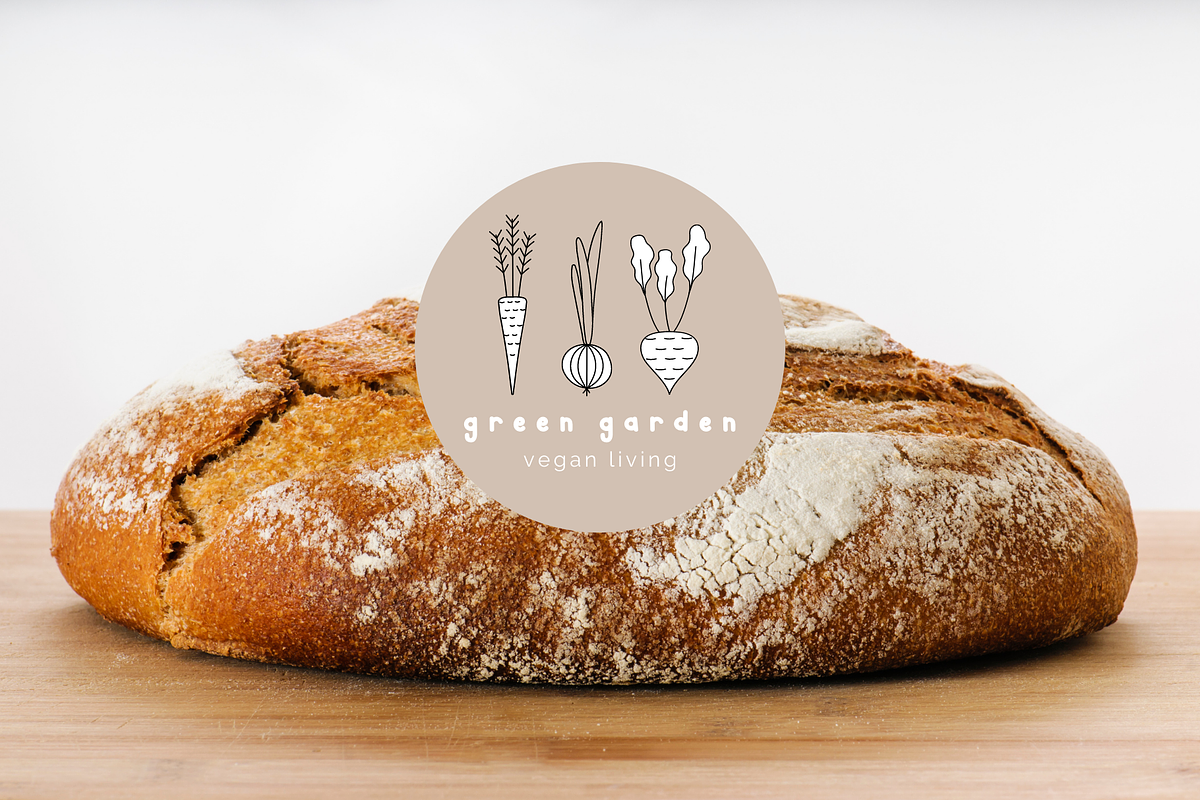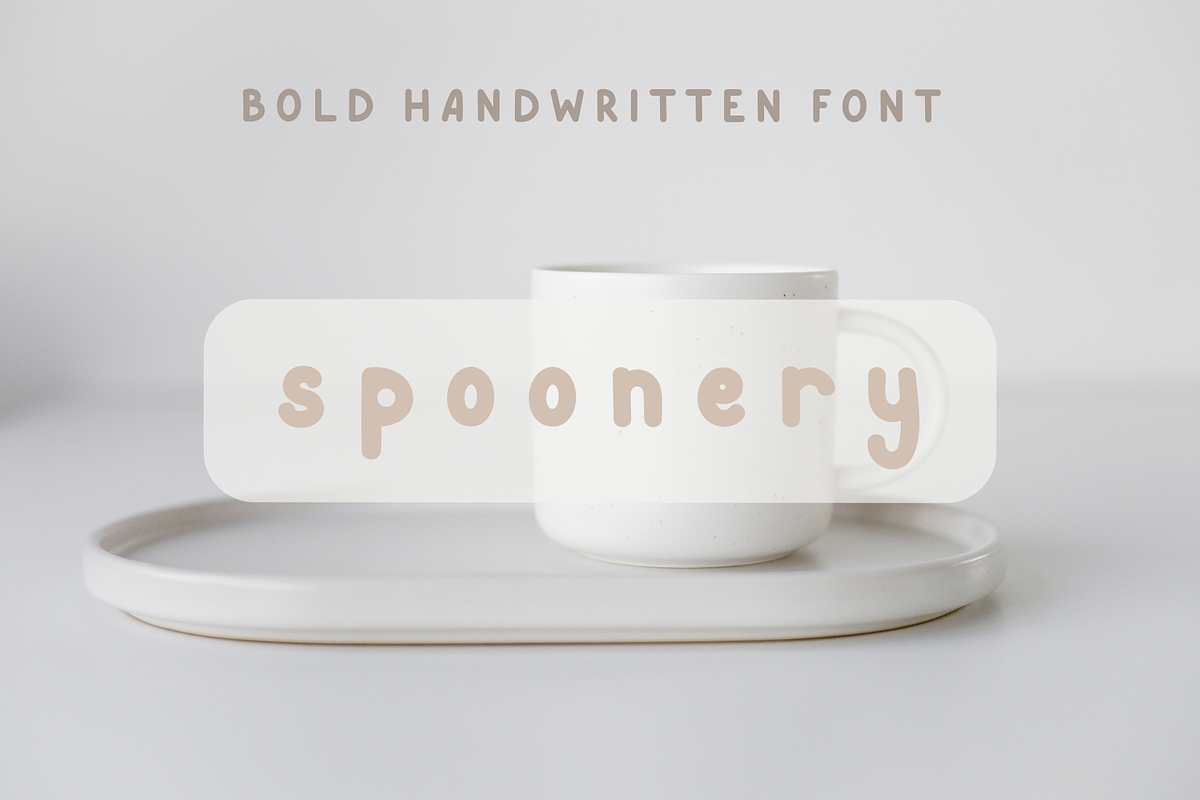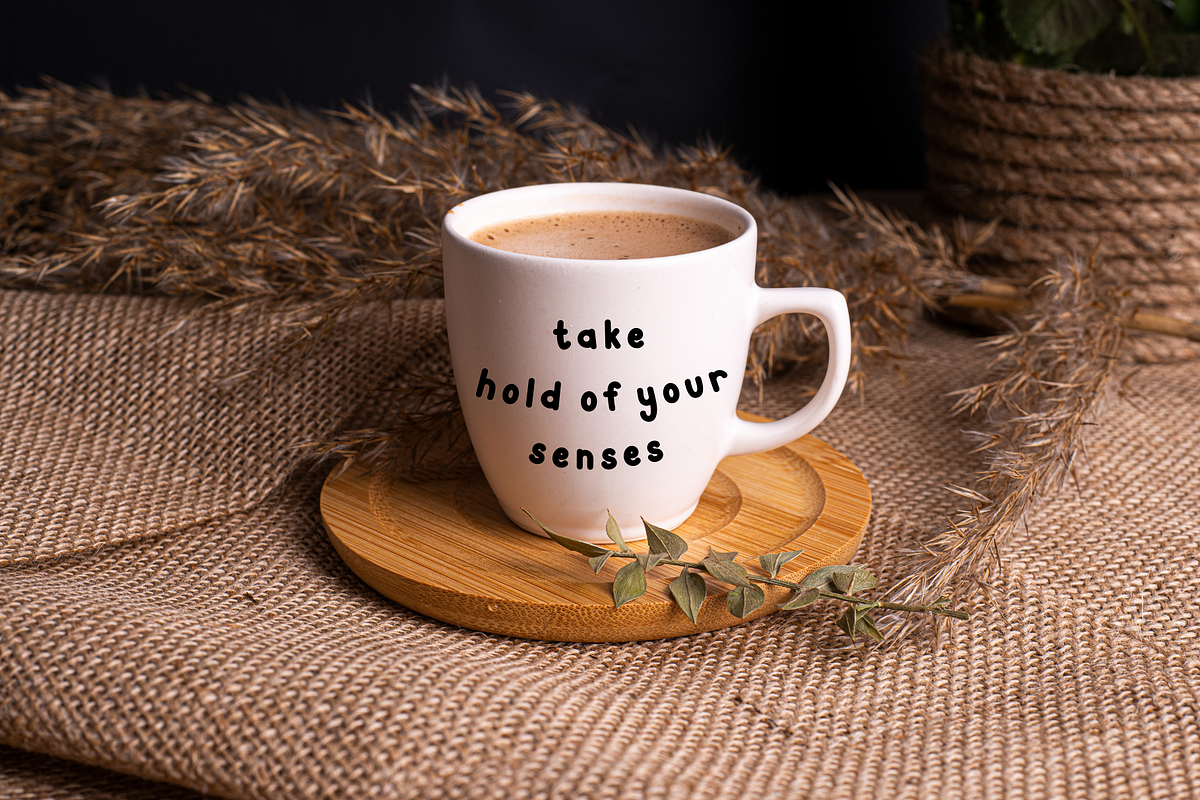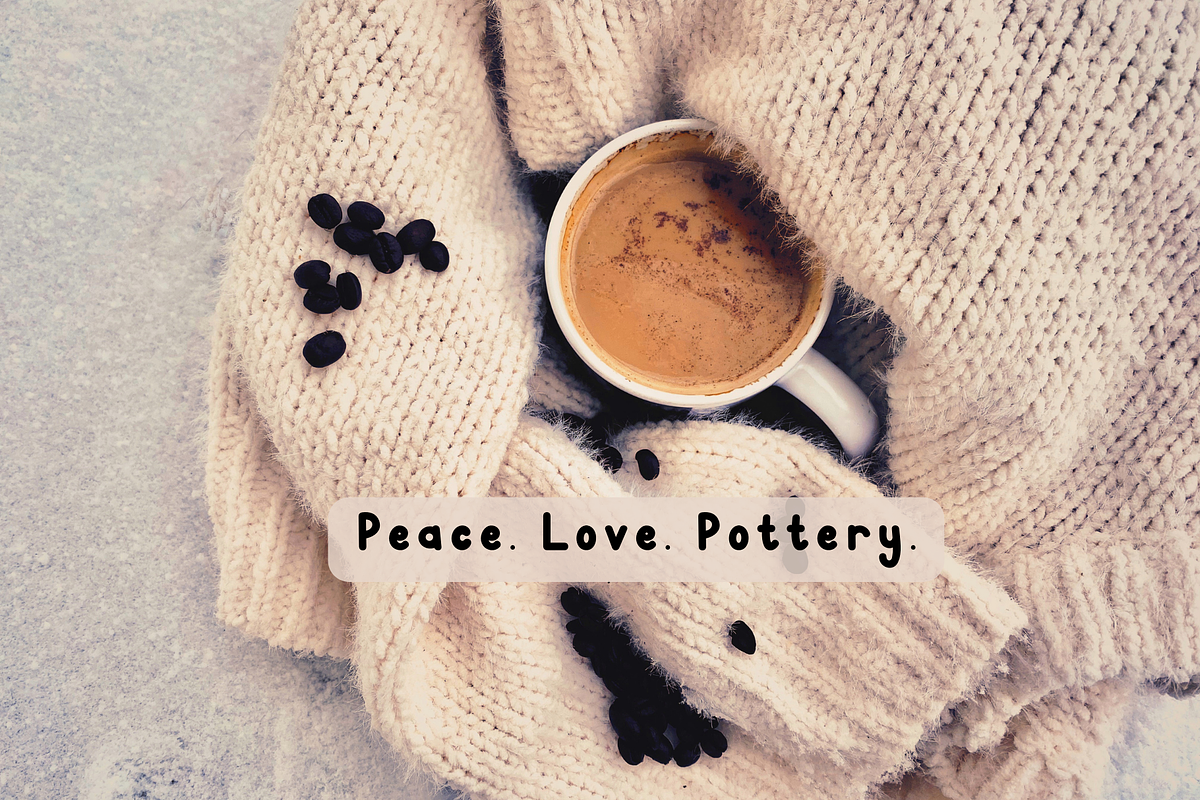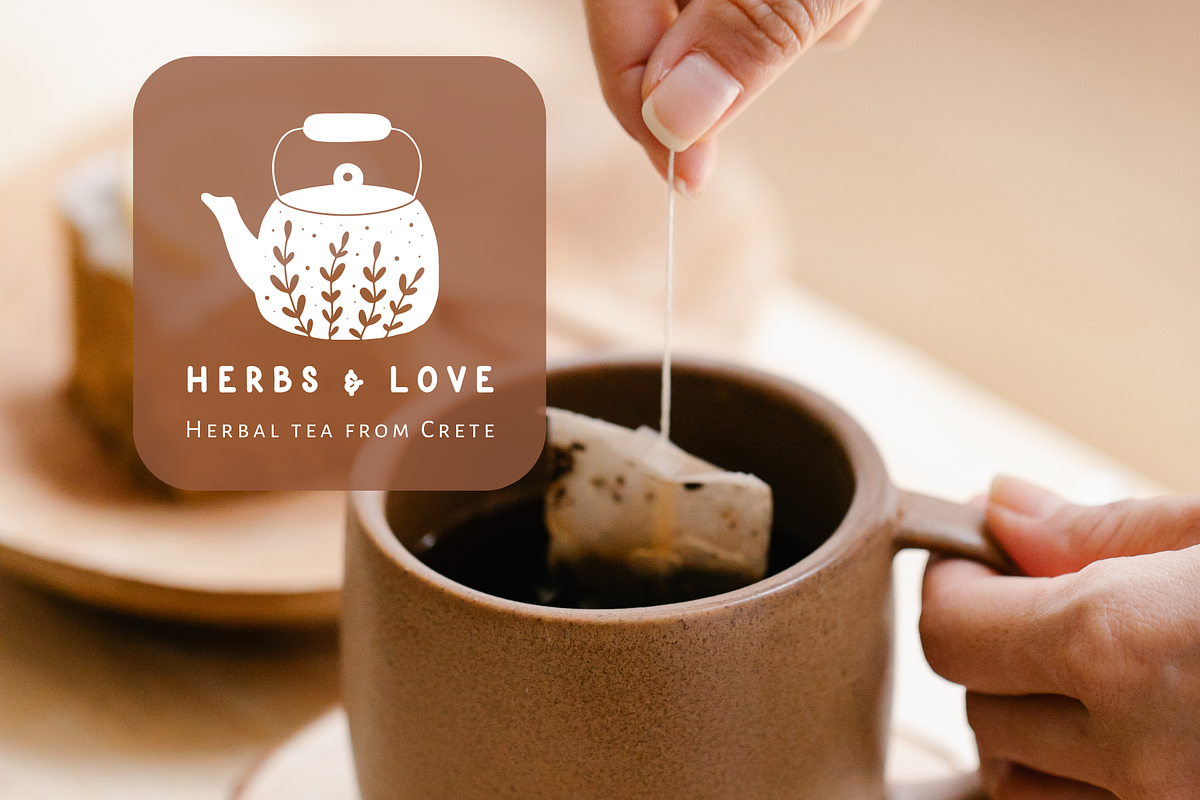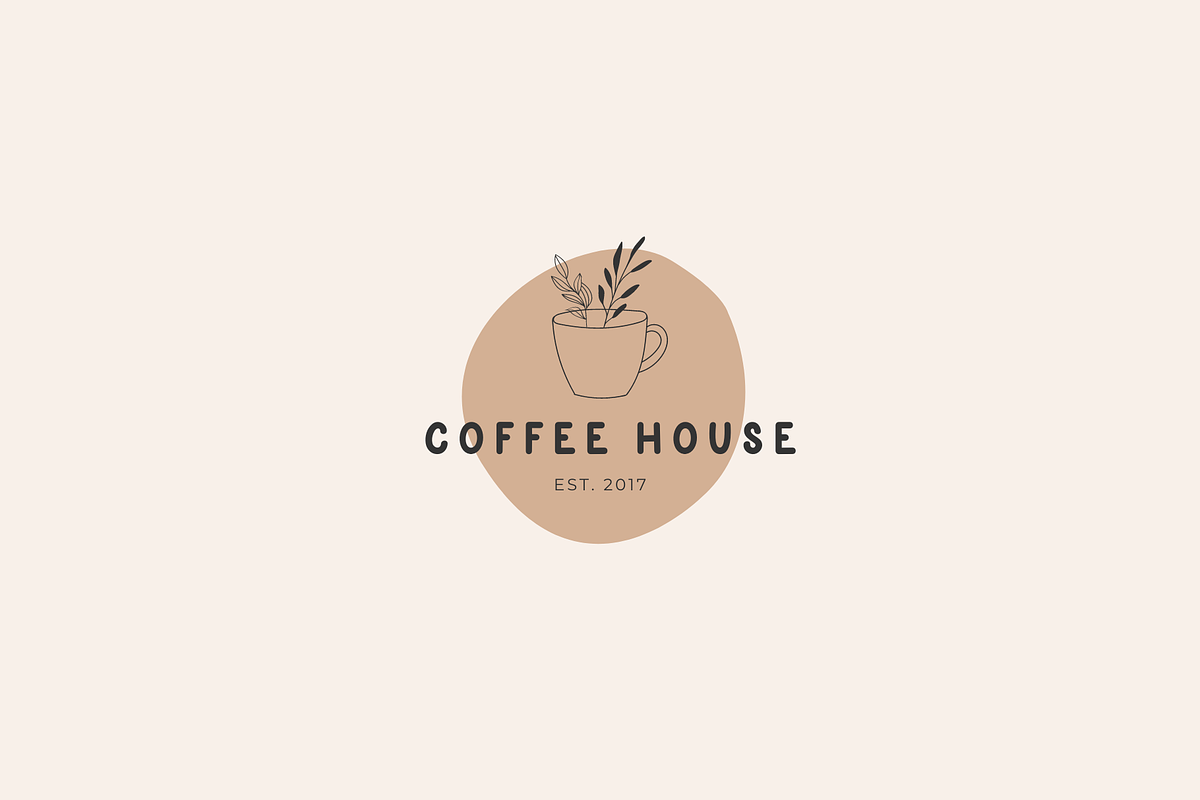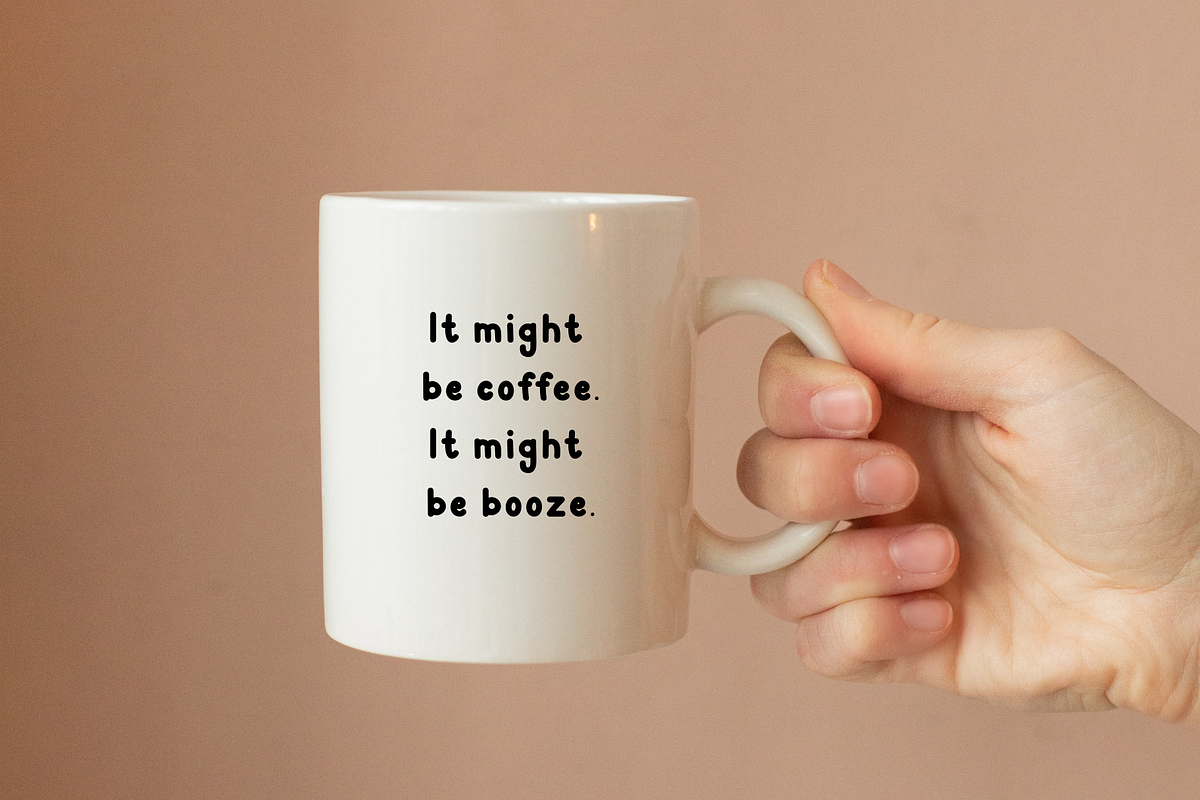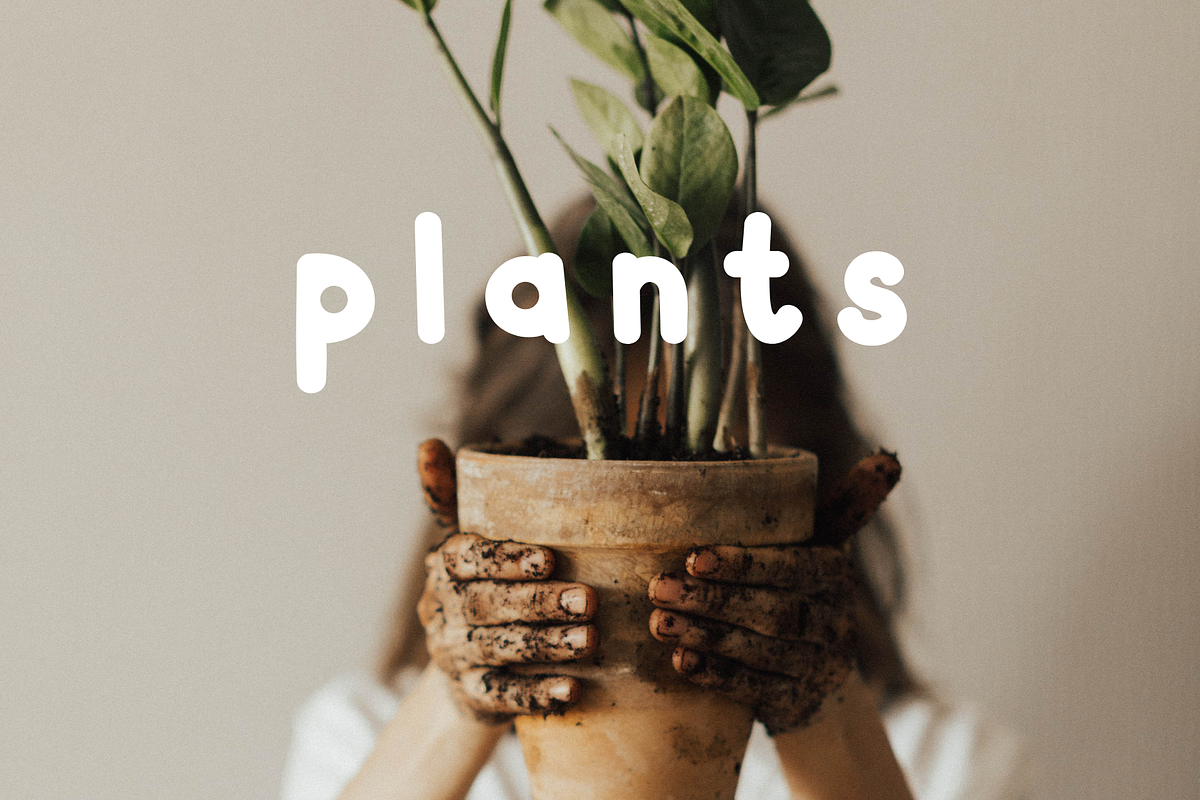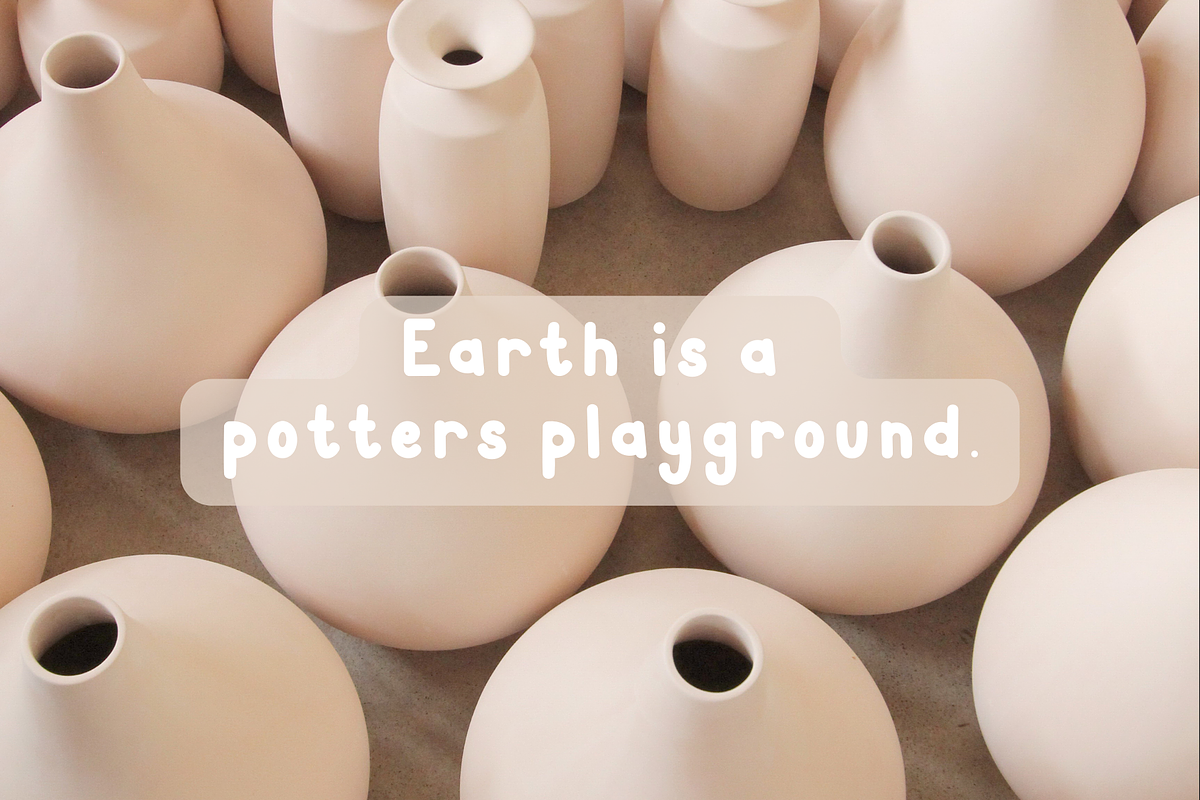
Spoonery Bold Handwritten Font
Use this font for your upcoming projects. Create beautiful logos, branding, notebooks, journals, labels, stickers, blogs, quotes, greeting cards, tea towels, apparel, pillows, mugs, toys, posters, baby clothing, picture books and so much more... basically anything that requires a cute look! 😍